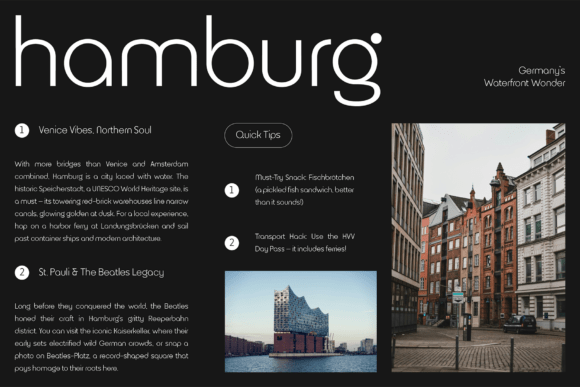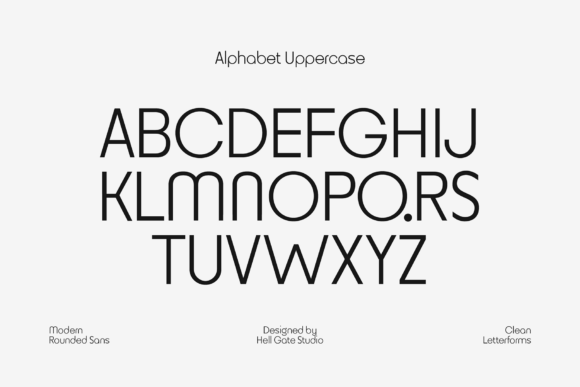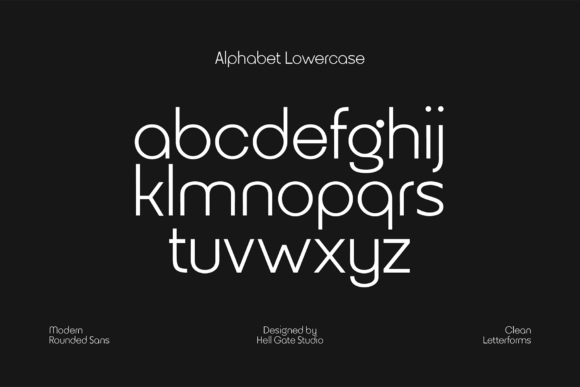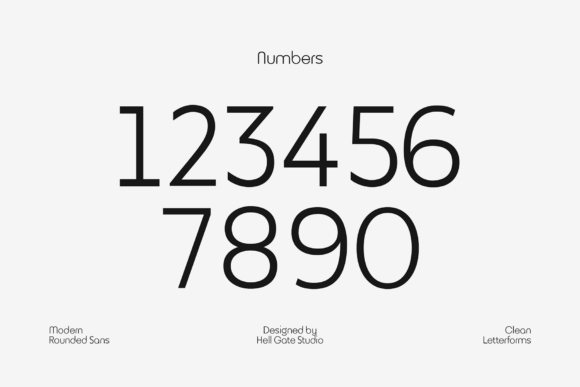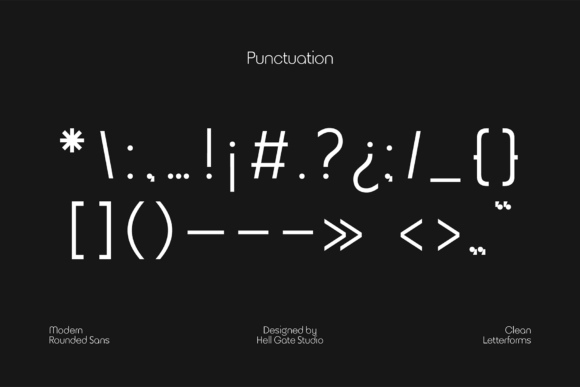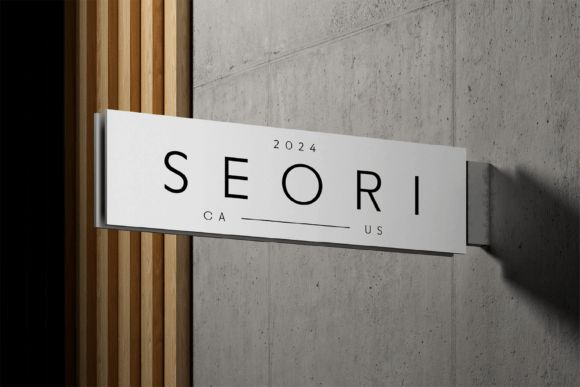
Unleash Your Creativity with the Cregmo Font
Have you ever been working on a design project, and suddenly, the perfect font pops into your mind? For designers, those ‘aha’ moments are what drive creativity and bring ideas to life. The Cregmo Font is one such revelation – a sophisticated and elegant typeface designed to elevate your designs and leave a lasting impression.
As a versatile and high-quality font, the Cregmo Font is perfect for designers looking to add a touch of refinement to their projects. Its OTF format ensures seamless adaptation and transformation, making it a valuable addition to any design toolkit. Whether you’re working on a luxury brand, a high-end magazine, or a premium website, the Cregmo Font is sure to bring a level of sophistication and elegance that’s hard to match.
- Unique Characteristics: Cregmo Font features a unique blend of modern and vintage elements, resulting in a distinctive and eye-catching design.
Cregmo Font Review
I recently had the chance to work with the Cregmo font, and I must say it’s an interesting choice. Here’s my honest take.
- Cregmo has a unique, modern aesthetic that can add a touch of sophistication to any design project.
- The font is highly legible, making it perfect for body text or headings.
- It’s great for creative projects that require a bit of flair, such as branding, advertising, or editorial design.
- The font can be a bit overbearing in larger sizes, so use it sparingly for headings.
- The italic styles can be a bit inconsistent, which may affect readability in certain contexts.
- The font family is relatively small, which may limit its versatility in complex design projects.
Overall, Cregmo is a solid choice for designers looking to add a bit of personality to their work. While it’s not perfect, its unique aesthetic and high legibility make it a great option for the right projects. With some careful use, Cregmo can add a touch of elegance to any design.
Tips for Getting the Most Out of Cregmo Font
Some tips for getting the most out of Cregmo Font include using it in combination with bold and italic text to create a unique look, and experimenting with different font sizes to create a visually appealing design.
Some common use cases for Cregmo Font include: creating business cards and brochures, designing posters and flyers, and creating social media graphics.